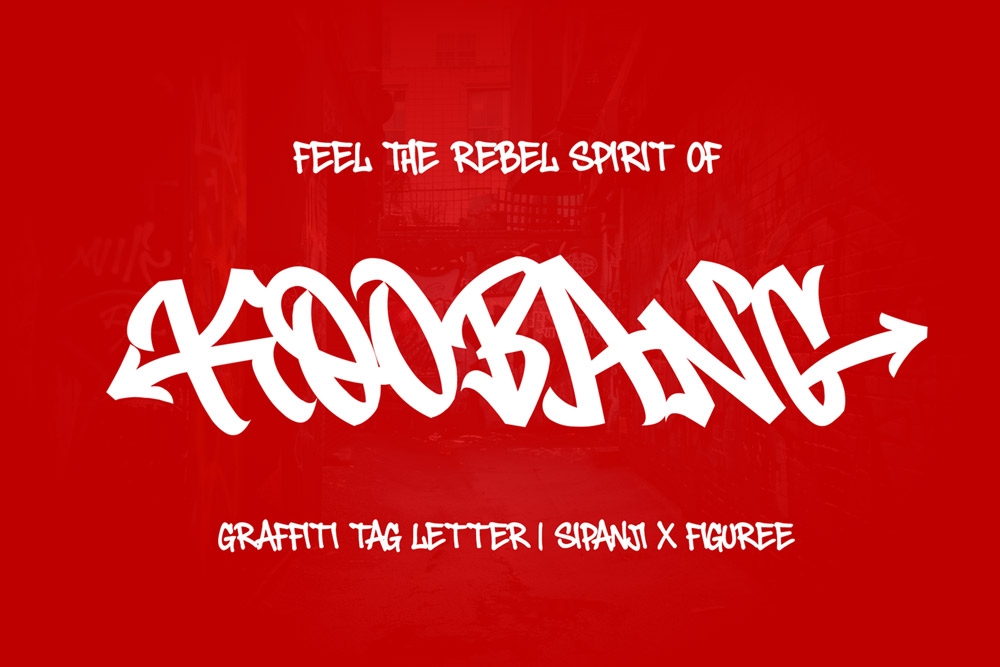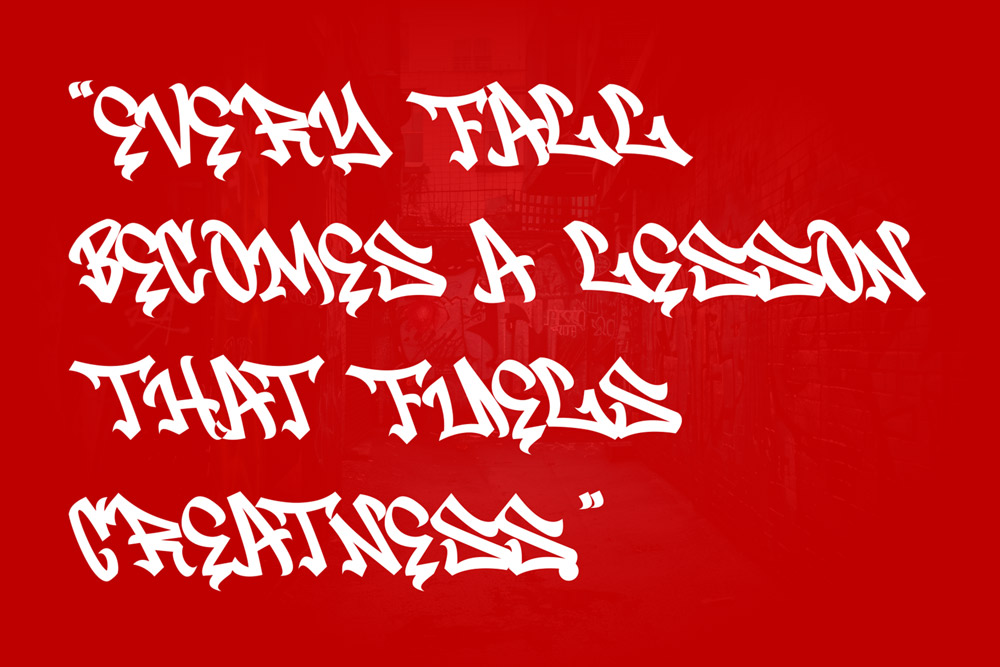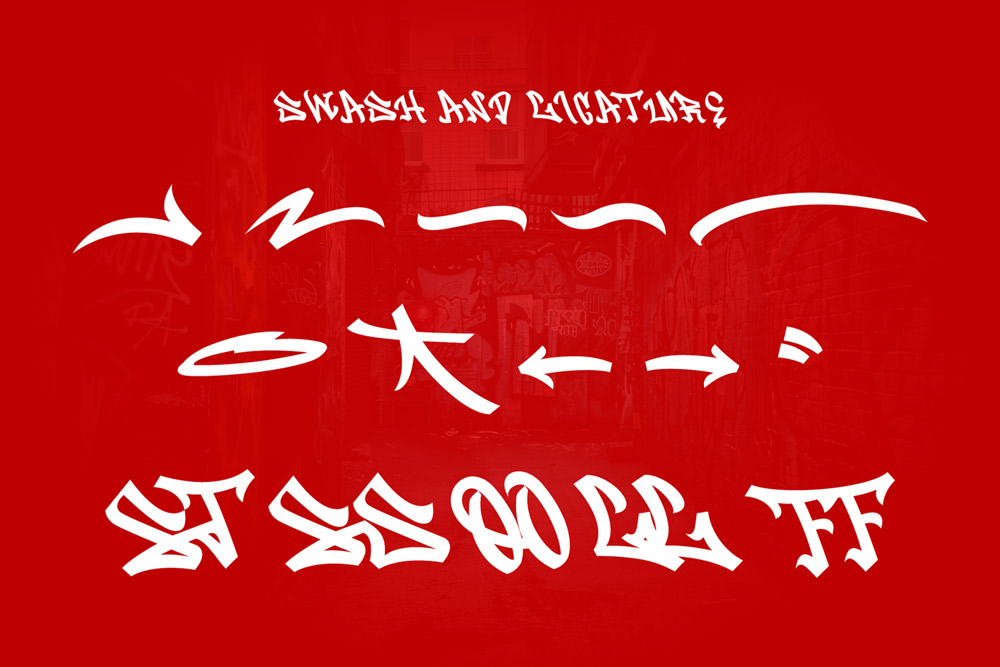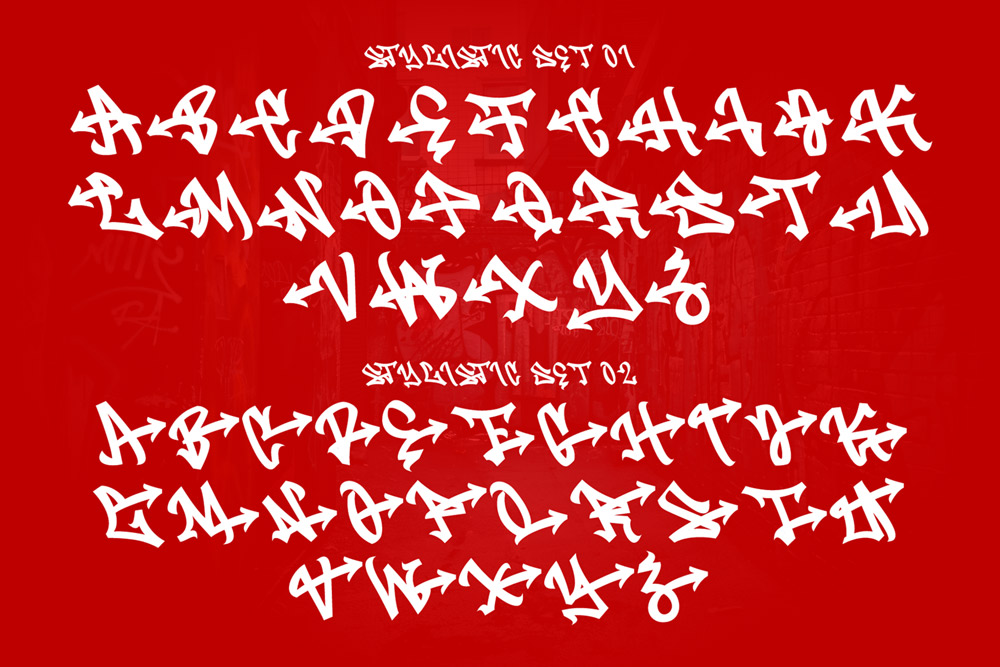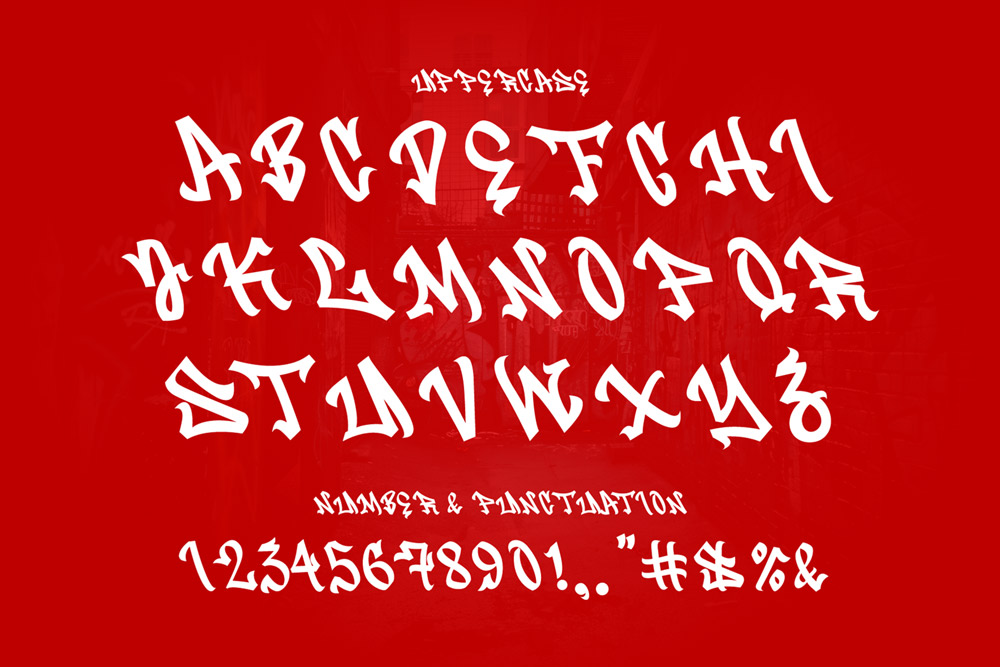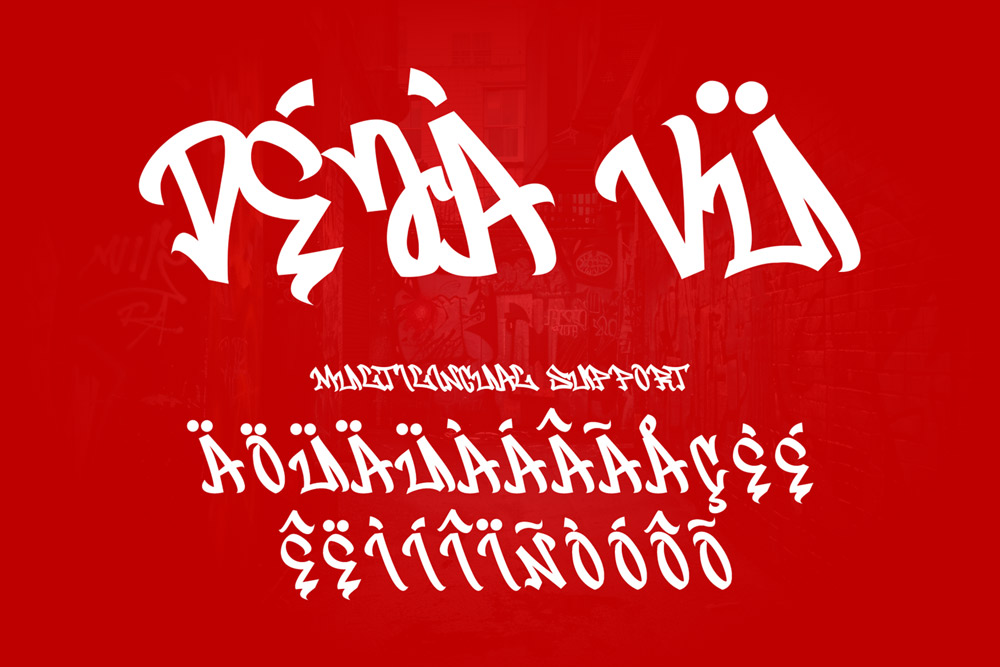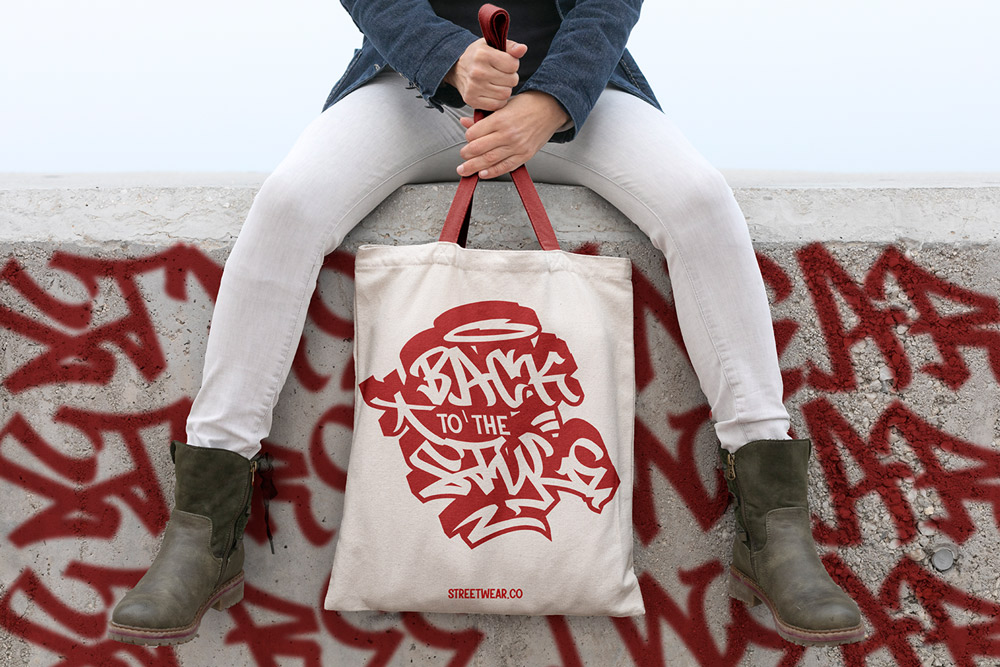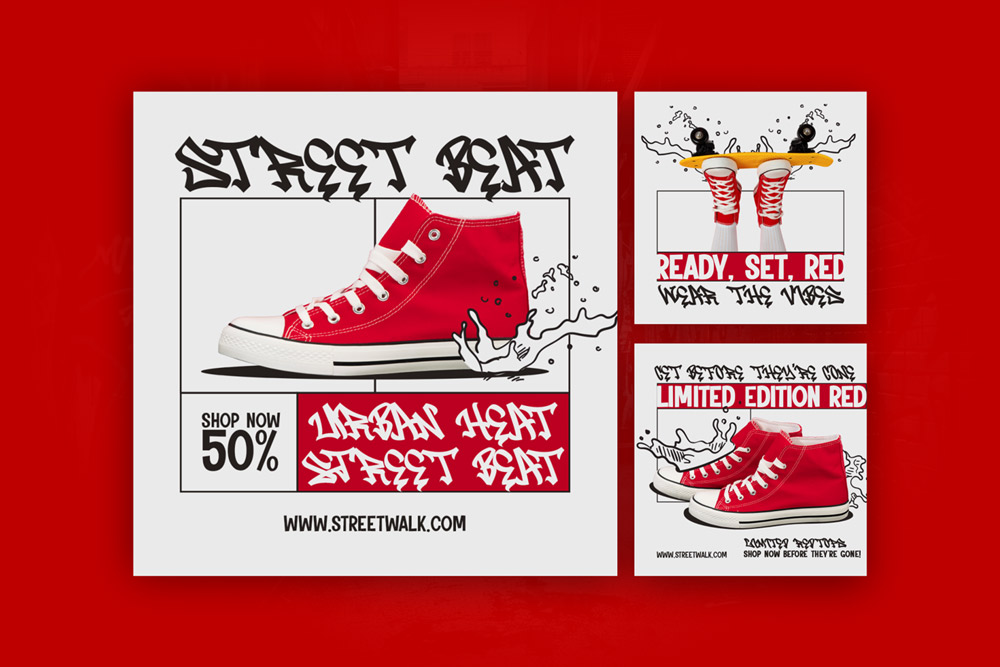
Bring the pulse of the city to your design with Koobang – Monoline Graffiti Tag Font with Street Style, a raw yet elegant typeface created by Cikareotype Studio. Inspired by authentic street tagging and marker lettering, Koobang captures the fearless rhythm of urban graffiti culture while keeping perfect readability for professional design work.
This monoline graffiti tag font is designed to represent true street art energy — a fusion of movement, confidence, and attitude. With uppercase characters, multilingual support, and stylistic alternates, Koobang gives designers everything they need to express personality and power through typography. Whether you’re working on streetwear branding, music album art, event posters, or social media visuals, Koobang adds instant graffiti authenticity.
True Street Energy in a Monoline Graffiti Font
Koobang is more than just another graffiti-inspired font — it’s a tribute to handstyle culture. Every stroke feels like a marker moving fast over a clean wall, leaving bold, confident lines behind. The monoline design ensures consistency and fluidity, giving your work that smooth, continuous flow graffiti artists strive for in real tagging.
Built for impact and expression, this street-style graffiti font works beautifully for both digital and print projects, from branding to editorial layouts. The organic, freehand touch gives it authenticity, while OpenType features like ligatures, swashes, and alternates add artistic depth and variety.
A Font that Embodies Street Style and Creative Freedom
Every curve and stroke in Koobang was designed with purpose — to mirror the energy of street tagging while offering professional usability. Its dynamic movement, looping swashes, and smooth ligatures make it ideal for designers who want to capture the essence of graffiti calligraphy without sacrificing clarity.
Use Koobang for:
Streetwear and Fashion Logos – Graffiti-inspired tags that define a brand’s street identity.
Album Covers & Music Branding – Bring hip-hop, punk, or indie energy to your visuals.
Event Posters & Flyers – Perfect for art shows, concerts, and underground events.
Stickers & Merchandise – Add a street-level vibe to packaging and accessories.
Social Media Design – Give your graphics a bold graffiti-style edge.
Every project with Koobang feels alive, thanks to its natural handstyle flow — bold enough for headlines, yet detailed enough for expressive lettering art.
✅ Monoline Style: Consistent, smooth line weight for clean graffiti flow.
✅ Uppercase Characters: Designed for bold, confident tagging and title work.
✅ Multilingual Support: Works for multiple languages, expanding global usability.
✅ Stylistic Alternates: Multiple character variations for artistic flexibility.
✅ Swashes & Ligatures: Add organic movement and depth to your design compositions.
✅ Authentic Street Energy: Inspired by real graffiti handstyle culture.
✅ Perfect for Print & Digital: Crisp, scalable, and reliable in all media.
Why Designers Love Koobang
Designers love Koobang because it feels real. It doesn’t try to imitate graffiti—it is graffiti, captured in digital form. Each character flows like a real marker tag: spontaneous yet controlled. The consistent monoline weight makes it highly adaptable, while stylistic alternates, ligatures, and swashes give endless variation and texture to your lettering.
Here’s what makes Koobang a designer favorite:
-
Raw Handstyle Authenticity: Every curve is crafted to feel natural and organic, as if drawn directly with ink.
-
Versatility: Works for both clean branding and wild street visuals.
-
Modern Graffiti Movement: Perfectly in sync with global design trends favoring bold, rebellious aesthetics.
-
Koobang gives you the creative freedom to experiment — add color overlays, outlines, or dripping shadows to push your graffiti designs to the next level.
Designed for the Streets, Built for Designers
Koobang bridges the gap between authentic graffiti tagging and professional graphic design. While traditional tagging focuses on motion and energy, Koobang converts that style into a usable digital tool that stays true to graffiti’s expressive DNA.
With uppercase characters, multilingual support, and OpenType features like stylistic alternates, ligatures, and swashes, Koobang is your ticket to mastering graffiti-inspired design. Whether you’re branding streetwear, designing concert visuals, or crafting stickers and posters, Koobang turns your words into art.
Let your designs speak graffiti. Let Koobang tag your world.